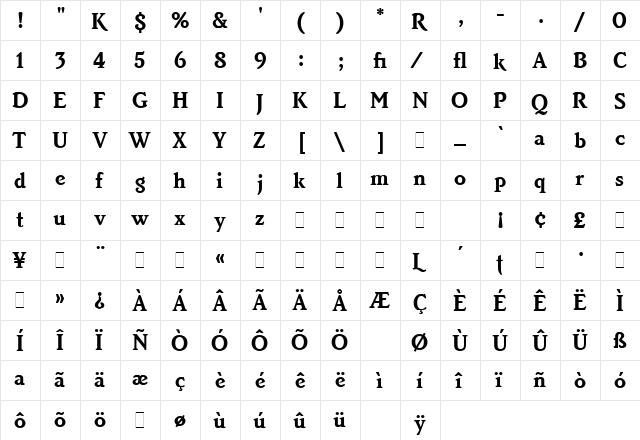
Brighton Bold LET Plain
Design Context for Brighton Bold LET Typeface
Brighton Bold LET is a composed and adaptable typeface that performs quietly and consistently across a wide range of design contexts. Its bold stroke weight gives it real presence on the page.
Pro Tip: Use Brighton Bold LET in both headline and body roles to test its range before committing to a single application.